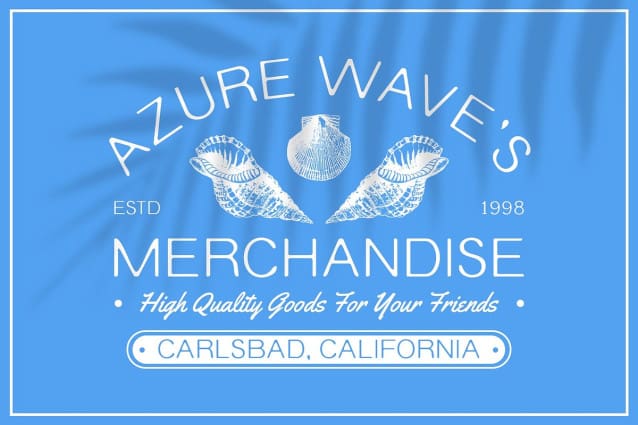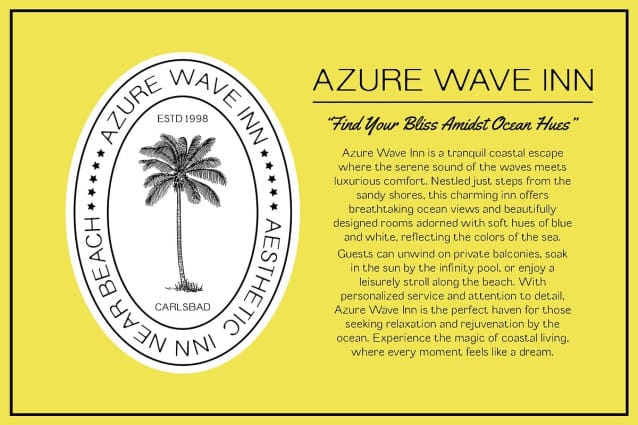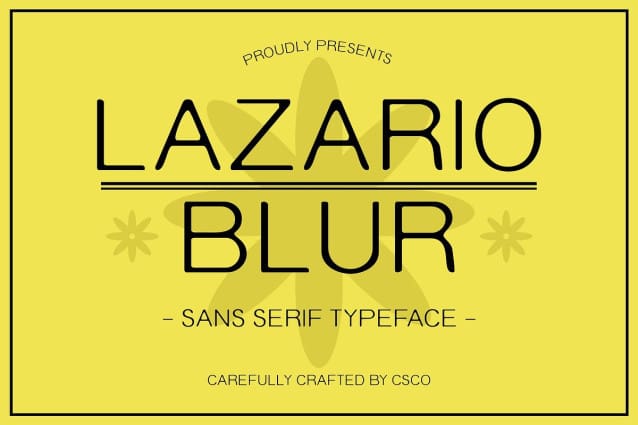
Lazario Blur Font
Lazario Blur Font is a modern sans serif font that expertly combines a geometric grotesque design with a captivating blur effect. This unique pairing showcases a harmonious balance of simplicity and creativity. With clean geometric lines, the font presents a contemporary and stylish appearance, perfect for today’s design landscape. The grotesque elements add a friendly and approachable feel, enhancing readability without sacrificing modern aesthetics.
Intriguing Visual Dimension with a Blur Effect What sets Lazario Blur apart is its applied blur effect, which introduces an intriguing visual dimension to each character. This dynamic feature creates a sense of movement and depth, making the font not just a means of communication but an artistic element in its own right. The blur enhances the overall design, allowing it to stand out in a crowded visual environment and engage viewers more effectively.
Versatile Applications for a Range of Projects Ideal for a wide array of design applications, Lazario Blur shines in branding, posters, and digital media. Its modern vibe and distinctive character make it suitable for creative endeavors that aim to leave a lasting impression. Whether you’re crafting an innovative marketing campaign, designing eye-catching promotional materials, or developing a unique brand identity, this font enhances the visual narrative with its contemporary charm.